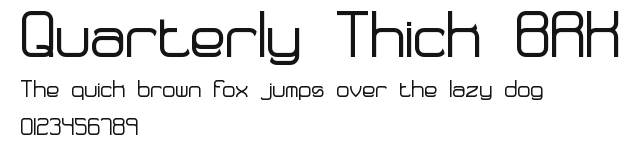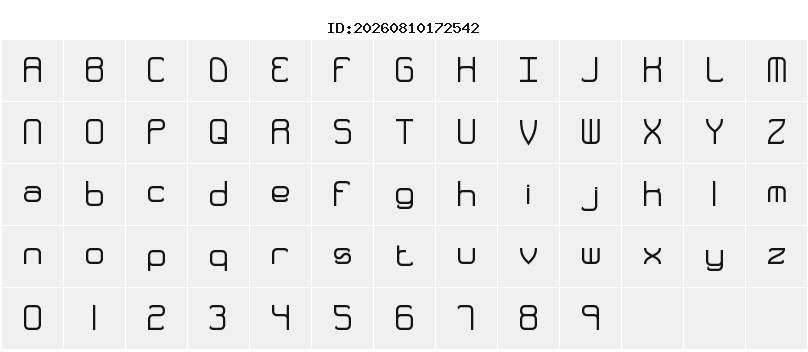
Quarterly Thick BRK Preview
• Font Name: Quarterly Thick BRK
• Full Font Name: Quarterly Thick BRK
About Quarterly Thick BRK.ttf
Quarterly Thick BRK.ttf is a modern, elegant sans-serif font designed for ultimate readability and visual harmony. Perfect for branding, headlines, web design, and print materials.